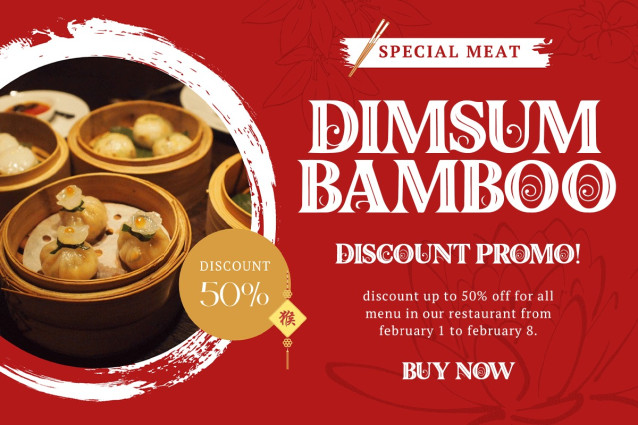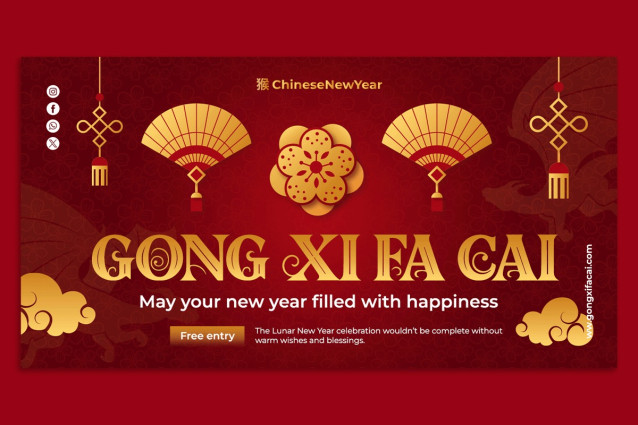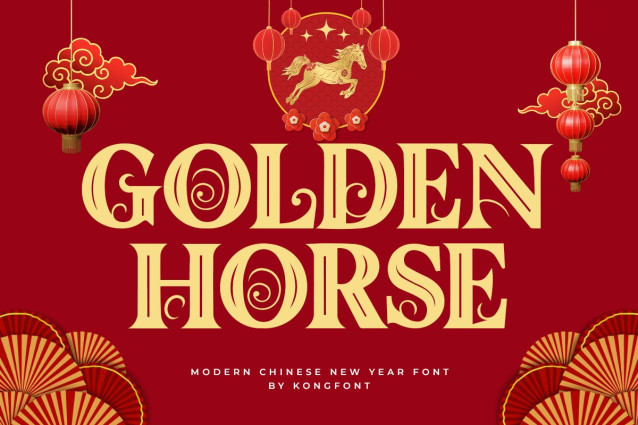
Golden Horse Font
Golden Horse Font A Modern Display Chinese Font Golden Horse A Modern Display Chinese Font is a modern Chinese font that presents a unique and attractive decorative typographic appearance. This typeface is a variation of decorative fonts that have themes of China. Not only in the form of ordinary letters, but this type of letter displays the nuances of China that are close. Speaking of readability, the Golden Horse A Modern Display Chinese Font is an illegible font. You have to see it carefully to understand it. This font was created to celebrate various celebration parties. This font can use as a poster and banner at events such as Chinese New Year celebrations. Welcome banners and party-themed posters for the invitees. Large print banners with medium font sizes will also be the best choice when using this type of letter because it will attract everyone’s attention to the words you write using this font when you enter the room. You can also use Golden Horse A Modern Display Chinese Font in other products such as; T-shirts, book covers, and branding. This font is suitable for all products with Chinese themes. This font can also use as a marketing and packaging advertisement for food products. This font can also use as decoration in places offered by people, such as; Shopping malls, restaurants, and bars. Our display and decorative fonts collection is compatible with usage as; Figma fonts, Canva fonts, Freepik Fonts, and Adobe Fonts. They also work as Windows Fonts and Apple Fonts. For your social media needs, you can use and install fonts in our collection of display and decorative fonts to use as Instagram Fonts, Facebook Fonts, and Twitter Fonts.